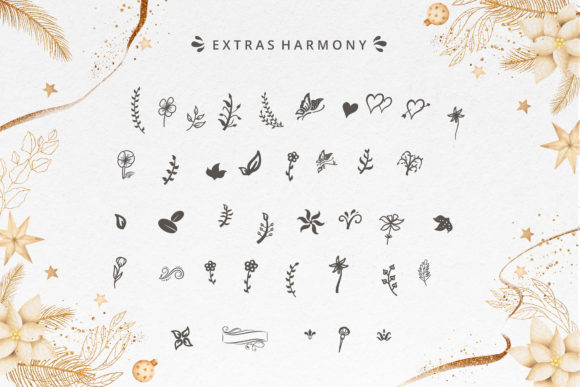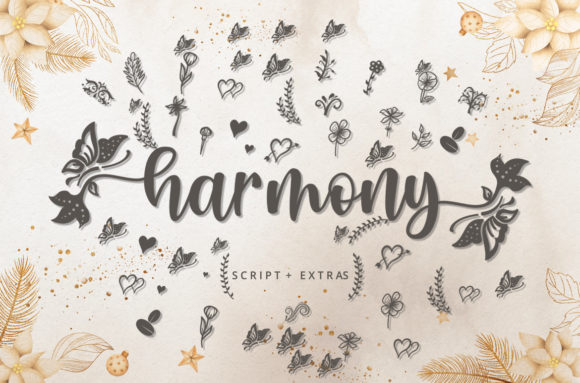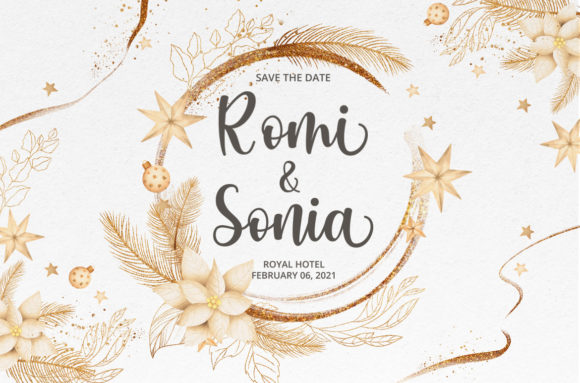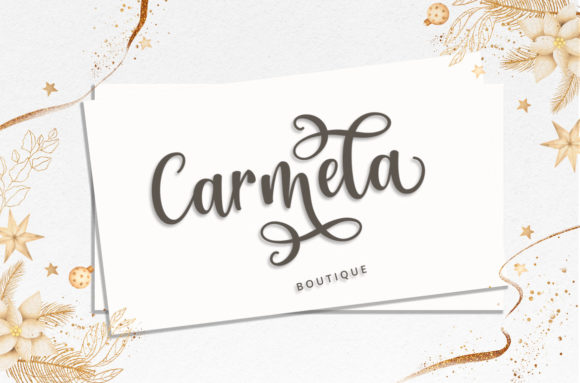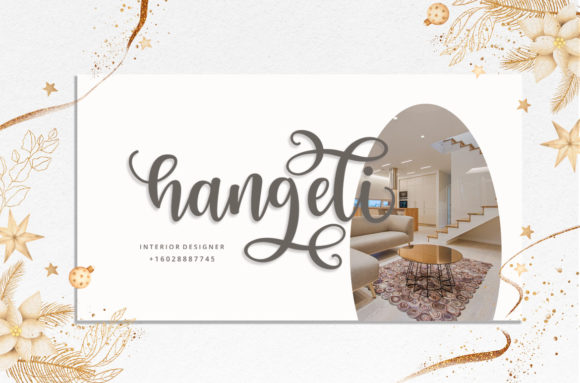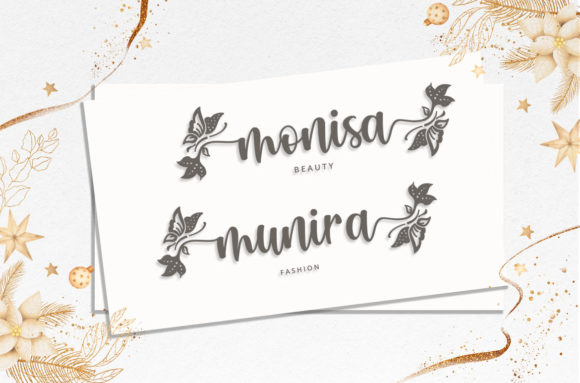
Introducing Harmony Font: Elevate Your Designs with Elegance and Sophistication
In the world of typography, a font can make or break a design. For designers and crafters seeking to add a touch of elegance and sophistication to their work, Harmony Font is an exceptional choice. This chic, highly detailed, and eternal handwritten font is perfect for creating eye-catching logos, branding, and quotes that leave a lasting impression.
The Characteristics of Harmony Font
Harmony Font boasts a unique blend of style and substance. Each letter is meticulously crafted with a neat and lovely touch, giving your designs a vibrant and lively feel. The font’s handwritten nature adds a personal and humanizing element, making it ideal for projects where you want to convey warmth and approachability.
Why Choose Harmony Font?
There are several reasons why Harmony Font stands out from the crowd:
- Versatility: Harmony Font is incredibly versatile, making it suitable for a wide range of design applications, from logos and branding to quotes and social media graphics.
- Elegance: The font’s elegant and refined aesthetic ensures that your designs exude sophistication and poise.
- Readability: Despite its ornate nature, Harmony Font remains highly readable, even at smaller sizes.
- Uniqueness: With its distinctive character set, Harmony Font helps your designs stand out in a crowded visual landscape.
Harmony Font is a dream come true for designers and crafters looking to elevate their work. Whether you’re creating:
- Logos: Use Harmony Font to craft memorable and impactful logos that capture the essence of your brand.
- Branding materials: From business cards to letterheads, Harmony Font adds a touch of sophistication to your branding materials.
- Quotes and posters: Add a dash of elegance to your quotes and posters with Harmony Font, making them perfect for social media or print.
Tips for Using Harmony Font Effectively
To get the most out of Harmony Font, consider the following tips:
- Pair with contrasting fonts: Combine Harmony Font with a contrasting font to create visual interest and hierarchy.
- Experiment with colors: Harmony Font looks stunning in a range of colors, from bold and bright to soft and pastel.
- Pay attention to spacing: Ensure that your text is properly spaced to maintain readability and visual flow.
Harmony Font is a stunning handwritten font that offers designers and crafters a unique opportunity to elevate their work. With its elegant and refined aesthetic, versatility, and readability, Harmony Font is the perfect choice for creating eye-catching logos, branding, and quotes. Whether you’re a seasoned designer or a crafty hobbyist, Harmony Font is sure to become a staple in your design toolkit.